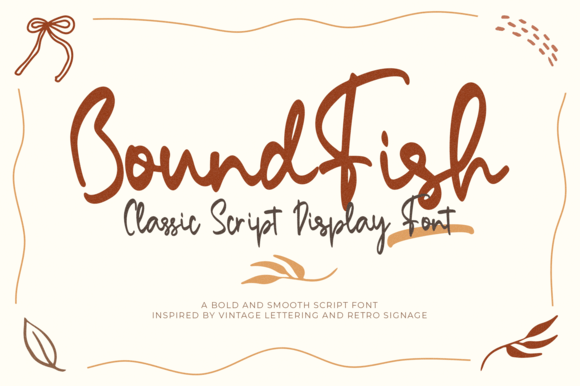
The Perfect Catch: Introducing Bound Fish Font
Remember that moment when you stumbled upon the perfect font for your design project? The one that made everything click, and your vision come alive? That’s exactly what we’re about to share with you – a treasure trove of beautiful fonts that will make your designs stand out from the crowd.
At Bound Fish, we’re passionate about creating fonts that convey a message with style and personality. Our collection of beautiful, playful, and whimsical fonts – designed specifically for those who want a touch of handwritten, whimsical, and captivating script – is here to elevate your designs to the next level.
Bound Fish Font Key Features
- Unique Characteristics: The Bound Fish Font features a unique, hand-drawn design with a fishbone-inspired motif, adding a touch of whimsy and playfulness to any text.
Designer Review: Bound Fish Font
Overall, I was impressed by the creative approach of the Bound Fish Font. It has a unique and quirky feel that could add a touch of whimsy to any design project. ✨
- The font’s organic, hand-drawn style gives it a personal touch that’s perfect for creative projects.
- The variation in letterforms adds visual interest and makes the font more engaging.
- The font’s size and weight range is suitable for a wide range of applications, from headings to body text.
However, there are some limitations to consider. ⚠️
- The font may not be suitable for formal or professional projects, as its quirky style may come across as unprofessional.
- The font’s irregular letterforms may cause readability issues in certain situations, such as small text sizes or low-resolution displays.
- The font’s style may be too distracting for projects where clarity and simplicity are crucial.
Overall, I think the Bound Fish Font is a great choice for designers looking to add some personality to their projects. While it may not be suitable for every project, it’s a versatile font that can add a unique touch to the right design.
Tips for Getting the Most Out of Bound Fish Font
Here are some tips for getting the most out of Bound Fish Font:
- Experiment with different font sizes and styles to achieve the desired effect.
- Use Bound Fish Font in conjunction with other fonts to create a unique and visually appealing design.
- Customize the font to fit your brand or design style.
Bound Fish Font is suitable for a variety of design projects, including:
- Graphic design and illustrations
Alternatives to Bound Fish Font
Great Vibes Font is a handwritten font with a whimsical, cursive style. It’s perfect for adding a touch of elegance and sophistication to designs such as wedding invitations, greeting cards, and advertisements. Great Vibes Font has a more refined and polished look compared to Bound Fish Font, which has a more playful and casual feel.
Lobster Font is a modern, handwritten font with a distinctive, quirky style. It’s ideal for designs that require a bold and eye-catching look, such as posters, social media graphics, and product packaging. Lobster Font has a more dramatic and attention-grabbing feel compared to Bound Fish Font, which is more subdued and understated.
What is the recommended font size and resolution for the Bound Fish Font?
We recommend using the Bound Fish Font at a minimum size of 12 points for optimal legibility. For high-quality printing, we recommend a resolution of 300 DPI or higher. This will ensure that the font appears crisp and clear in your final output.